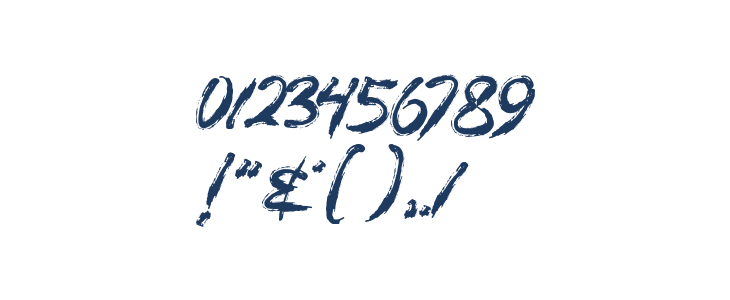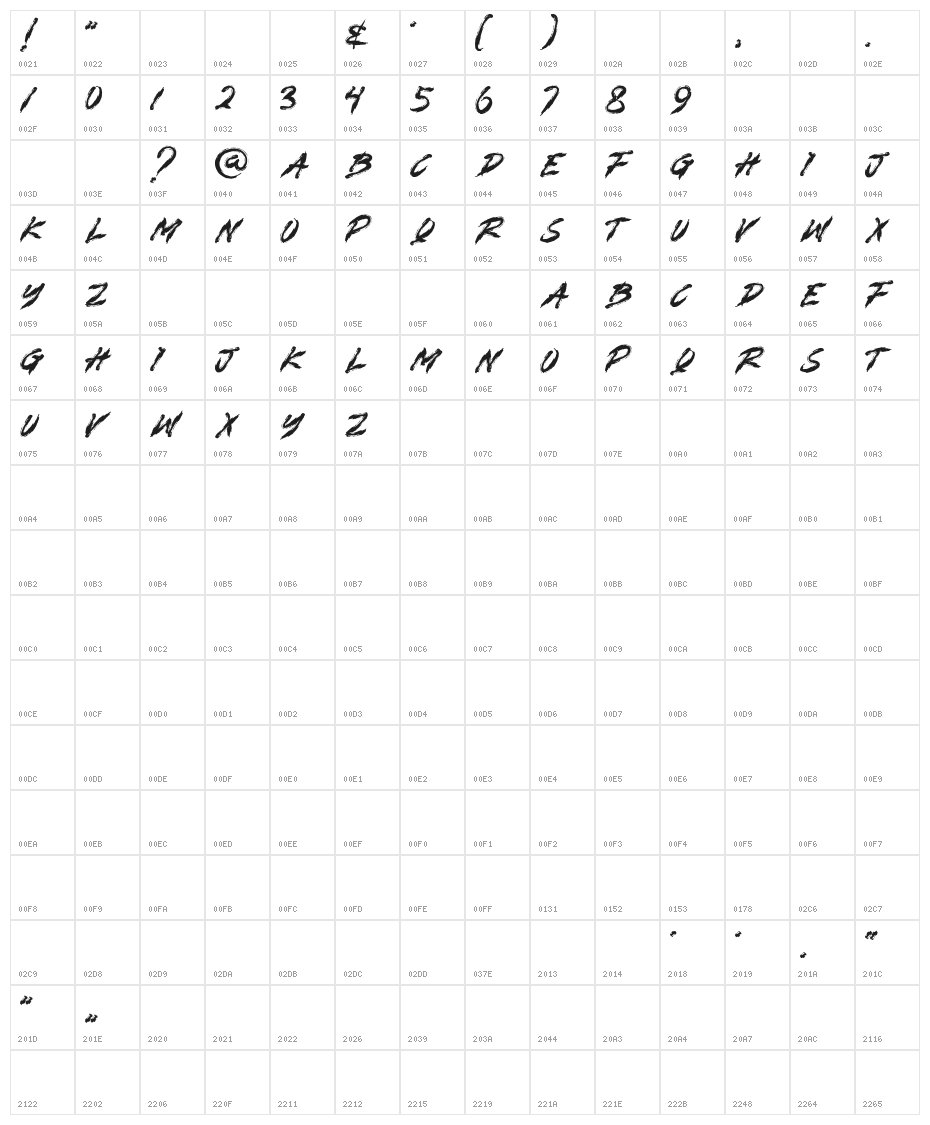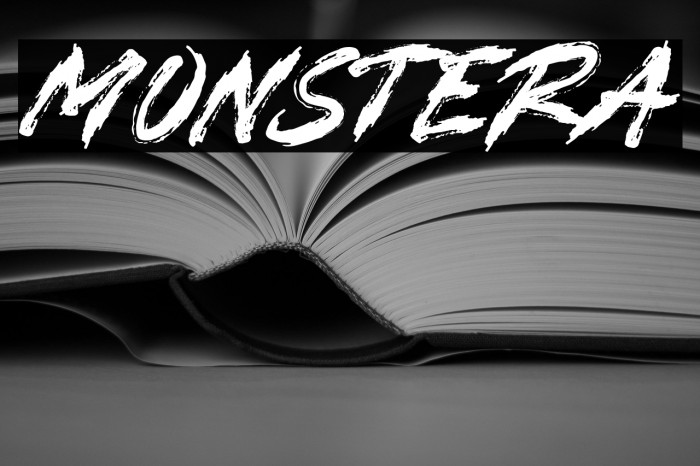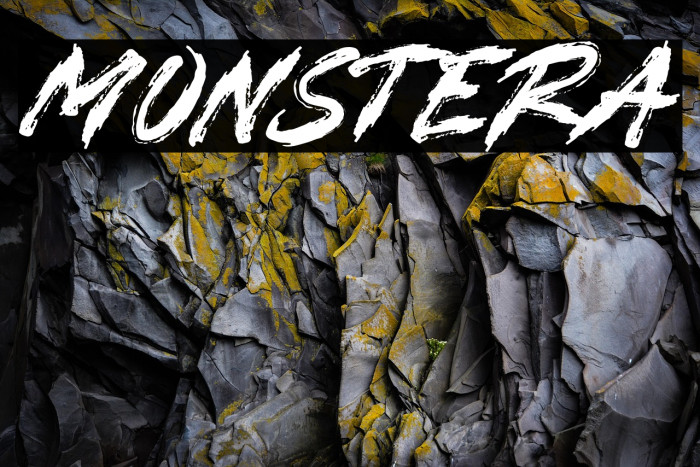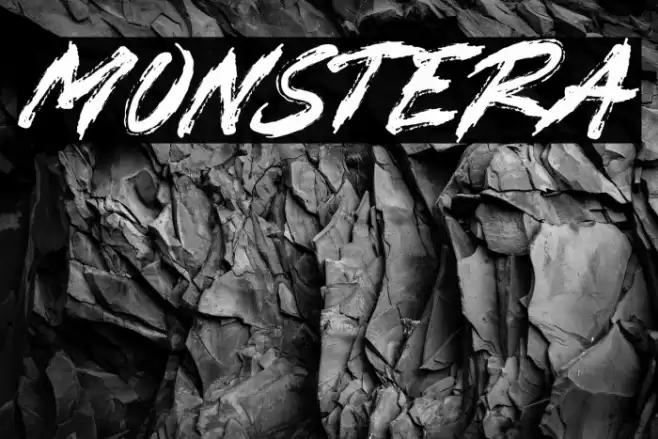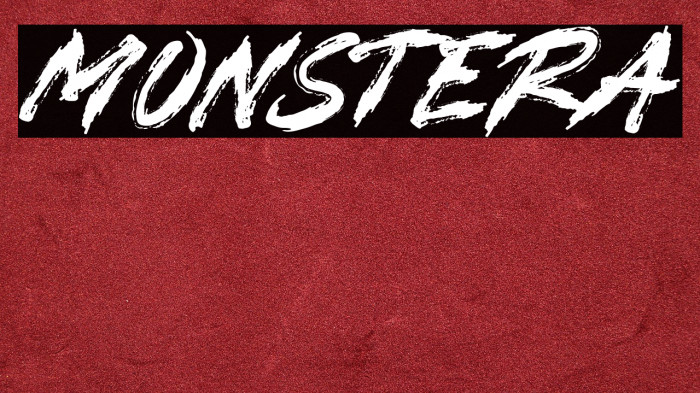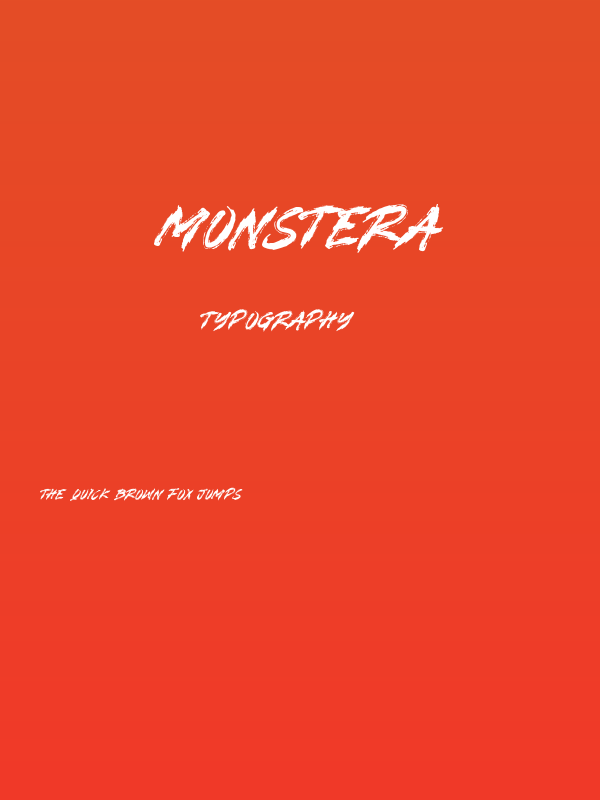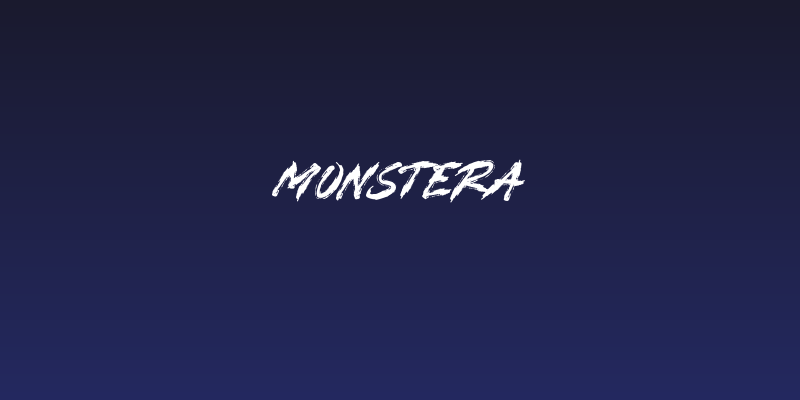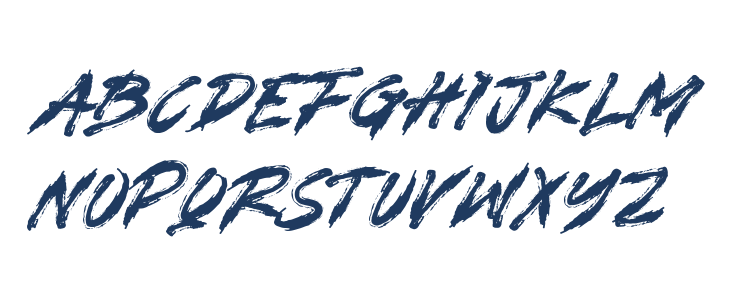
MONSTERA Font
MONSTERA Description
This font features a bold, brush-like style with a dynamic and energetic appearance. The strokes are irregular and textured, giving it a hand-painted feel that adds a sense of movement and expressiveness. The uppercase and lowercase letters maintain a consistent style, with sharp angles and fluid curves that create a cohesive look. The numbers and special characters are equally bold and expressive, matching the overall aesthetic. This font is ideal for projects that require a strong, artistic touch, such as posters, branding, and creative designs. Its unique style makes it stand out, capturing attention with its bold and artistic flair.